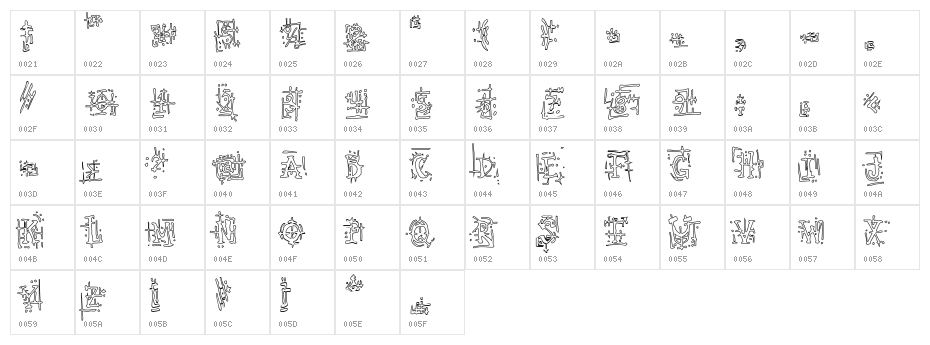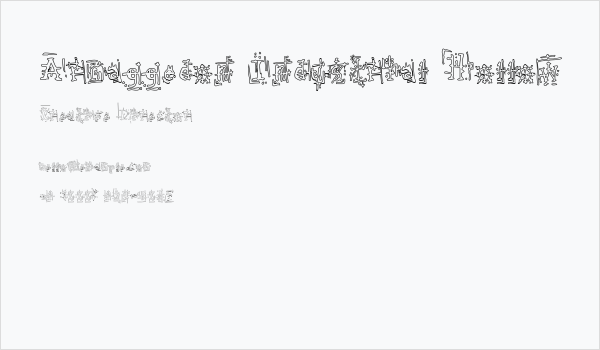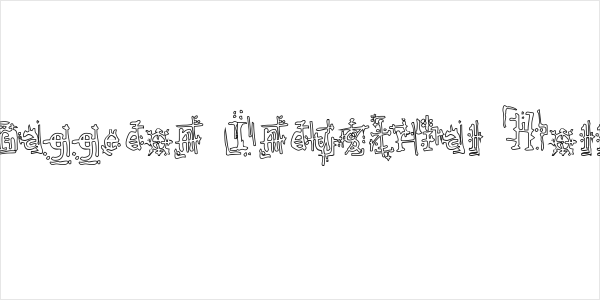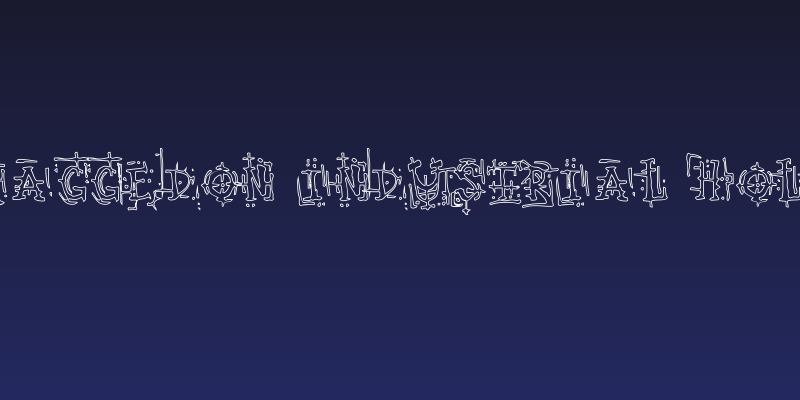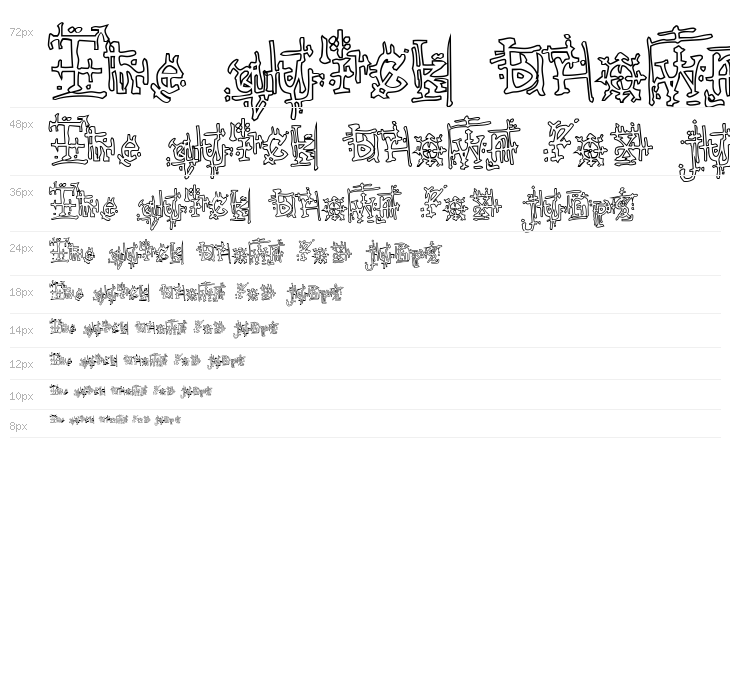
Armaggedon Industrial Hollow Font
Armaggedon Industrial Hollow Description
This font features an industrial and futuristic design with hollow characters that are intricately detailed. The letters are composed of geometric shapes and lines, giving them a mechanical and robotic appearance. The uppercase and lowercase letters maintain a consistent style, with angular and sharp edges that create a sense of movement and complexity. The numbers and special characters follow the same design principles, ensuring uniformity across the font. This font's unique style makes it stand out, ideal for projects that require a bold and unconventional look.
| Overall Style | Futuristic, Industrial |
| Proposed Projects | Ideal for sci-fi themed designs, video game titles, movie posters, and industrial branding. |